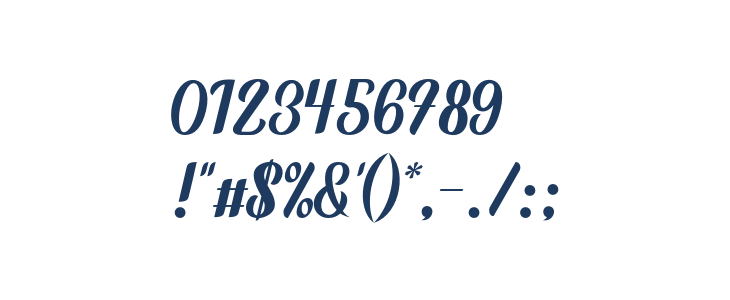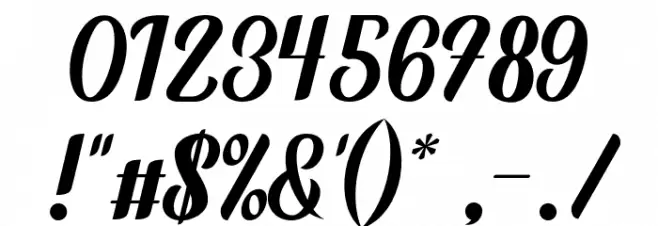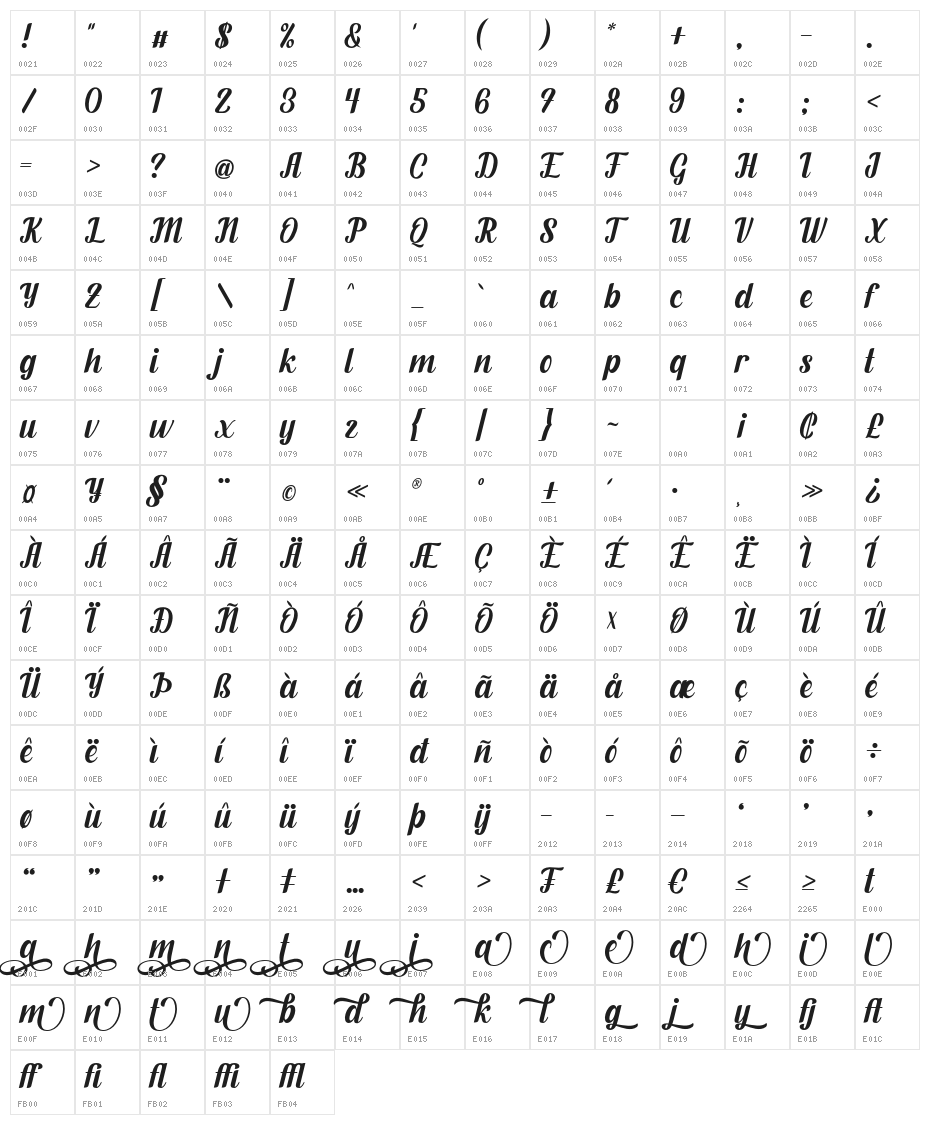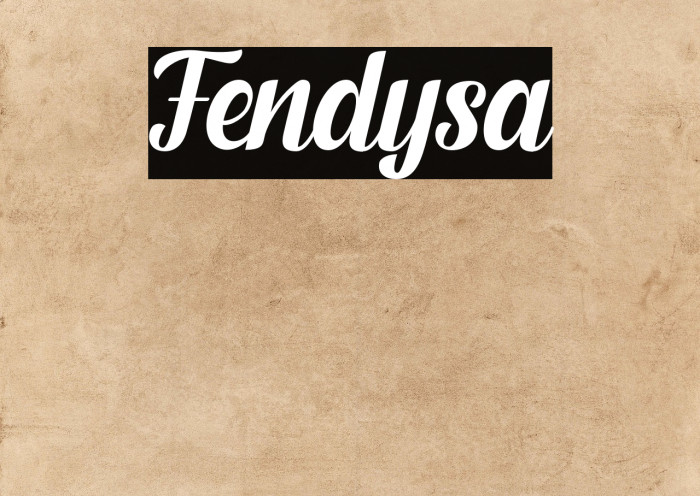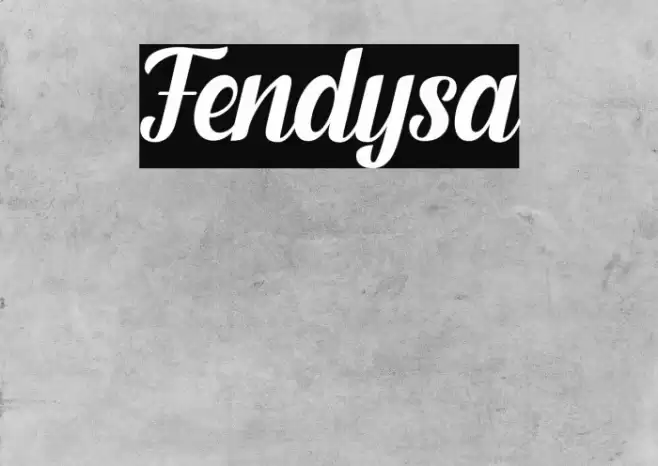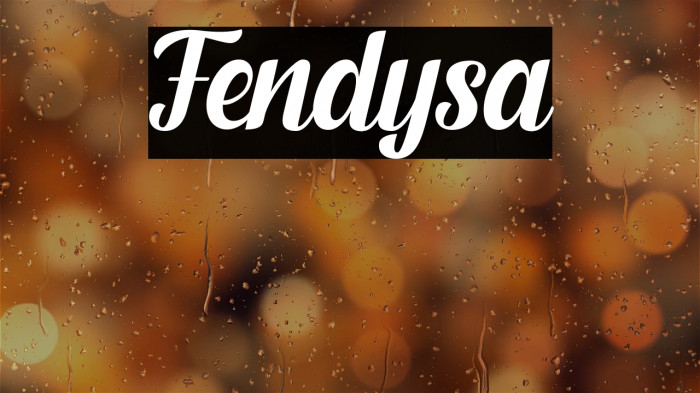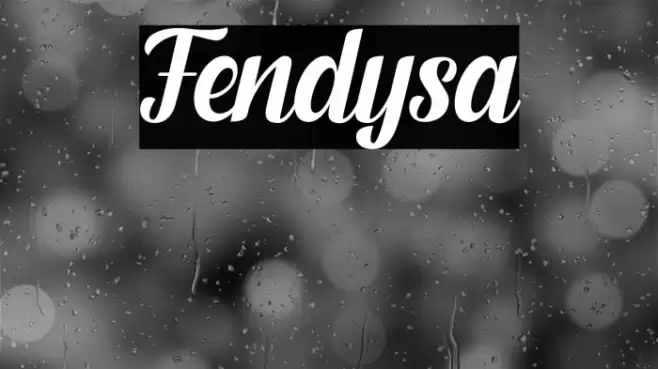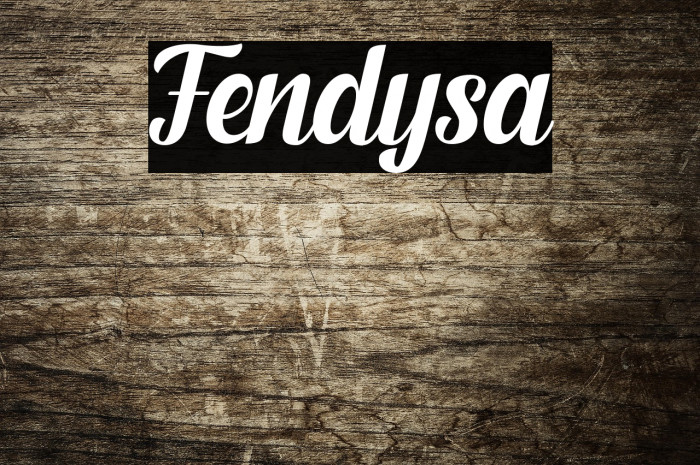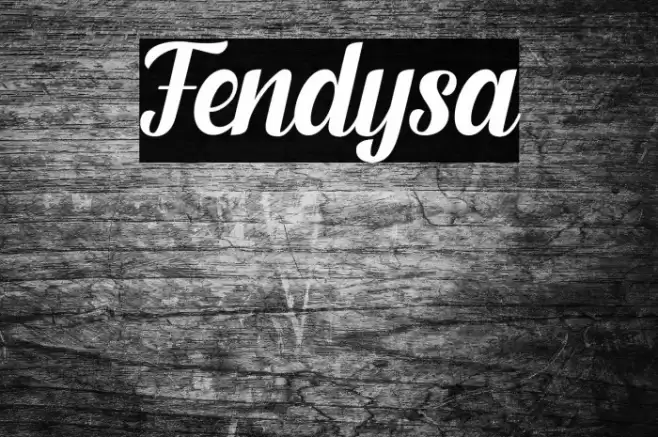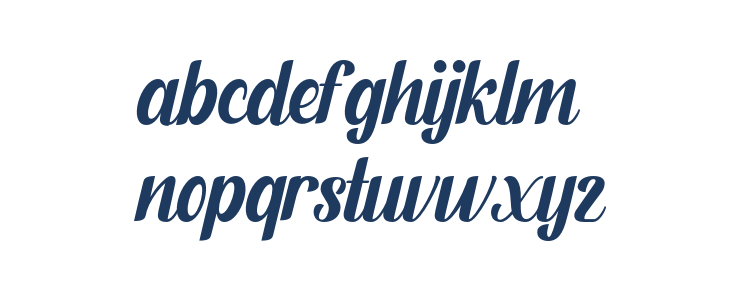
Fendysa Font
This font features a bold, cursive style with a strong emphasis on fluidity and elegance. The characters are interconnected, creating a seamless flow that is both dynamic and sophisticated. The uppercase letters are tall and slightly slanted, while the lowercase letters maintain a consistent rhythm with smooth curves and loops. The numerals are distinct, maintaining the same cursive flair, and the special characters are designed to complement the overall aesthetic. This font exudes a sense of modernity while retaining a classic script charm, making it versatile for various design needs.